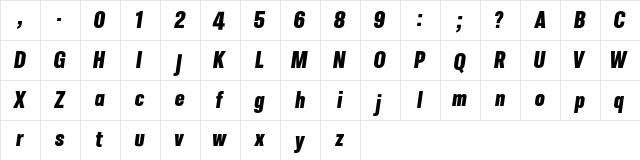
Circus Of Innocents Italic
Design Context for Circus Of Innocents Typeface
Circus Of Innocents takes a measured approach to typography — its balanced proportions and neutral character make it a reliable workhorse for both digital and print work. Its italic angle brings a sense of urgency and motion to the letterforms.
Pro Tip: Try Circus Of Innocents for annotation and caption copy alongside an upright companion — the contrast in angle creates a dynamic but ordered typographic system.